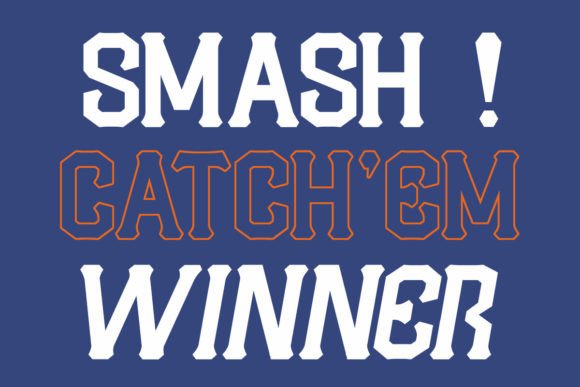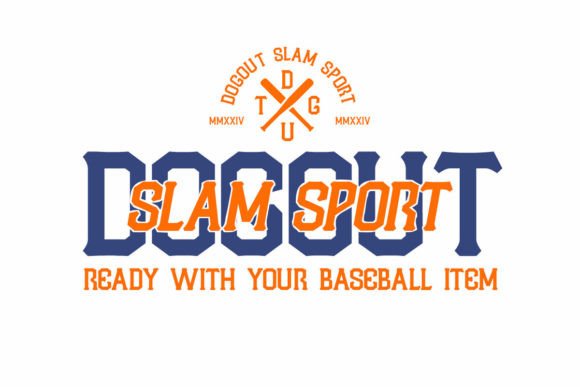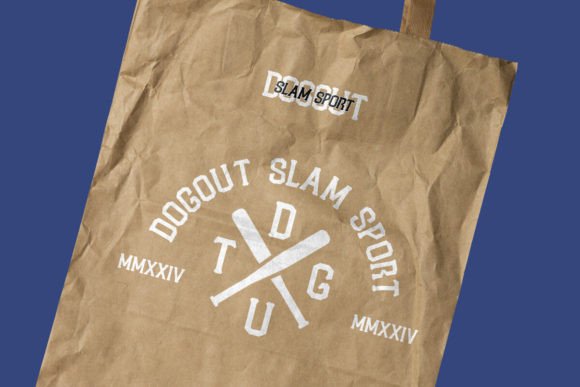
Introduction to Melbrick Font
Introducing Melbrick, The athletic slab font featuring 4 unique styles.
Inspired by old Western letters, Melbrick is here to bring boldness and confidence to your designs Melbrick is an athletic slab font that combines the rugged charm of the old West with a modern athletic edge.
Key Features of Melbrick Font